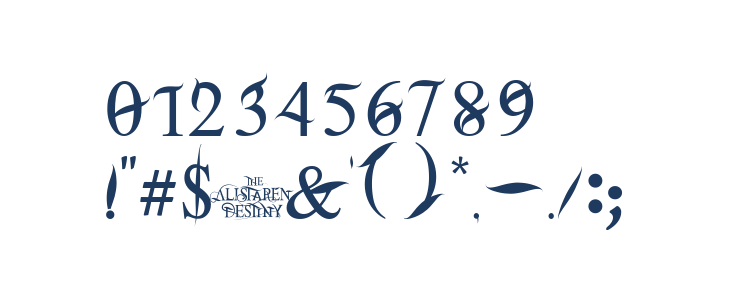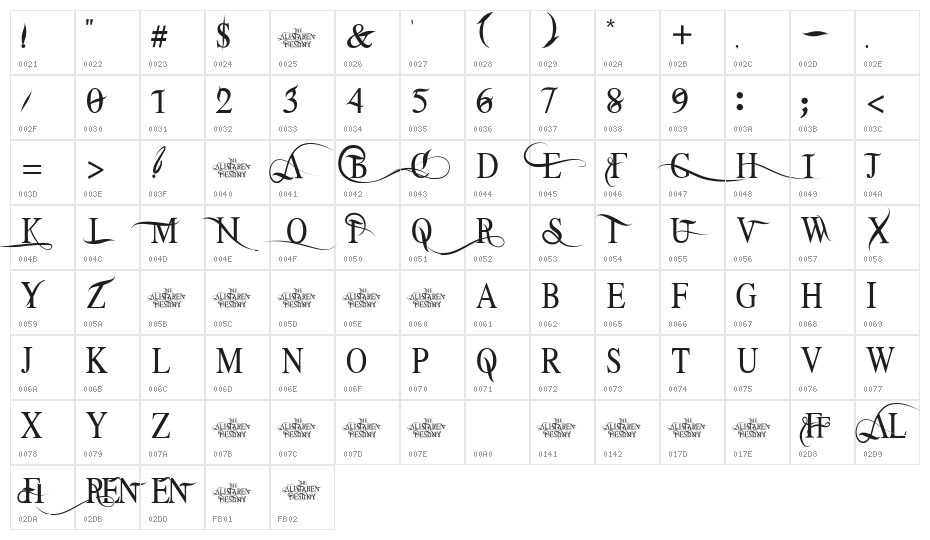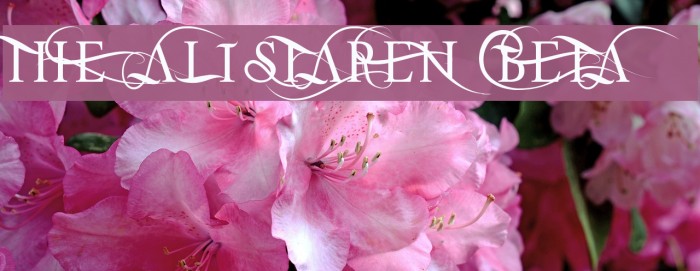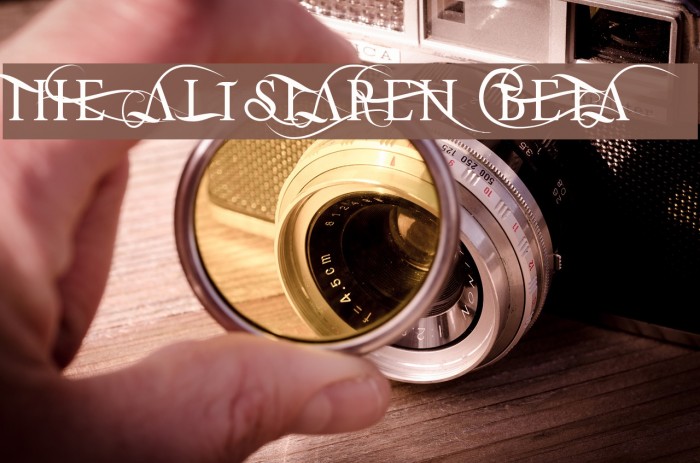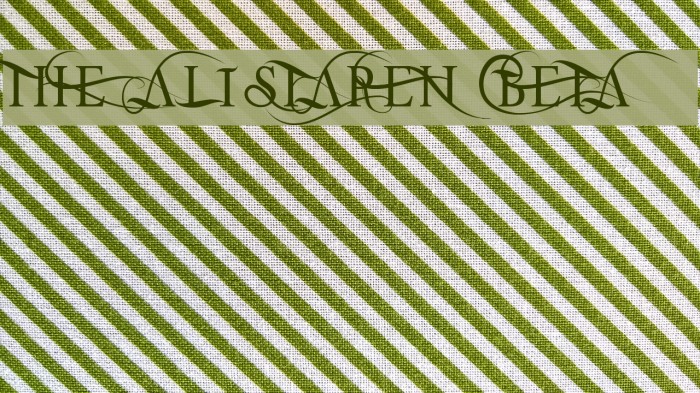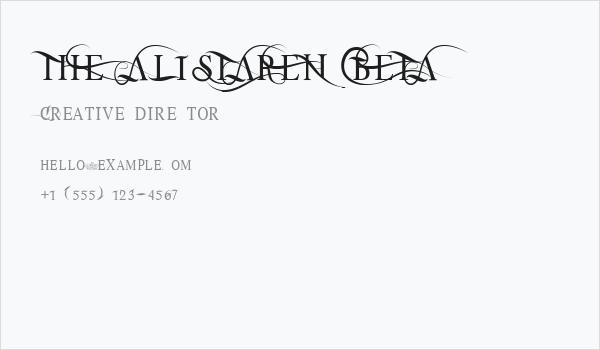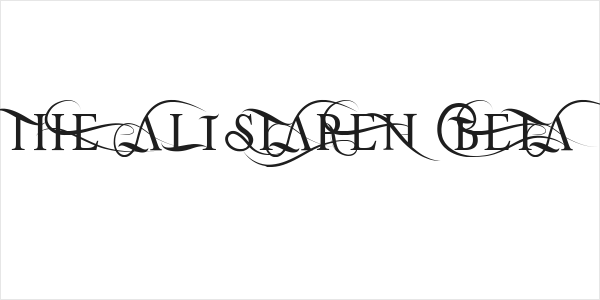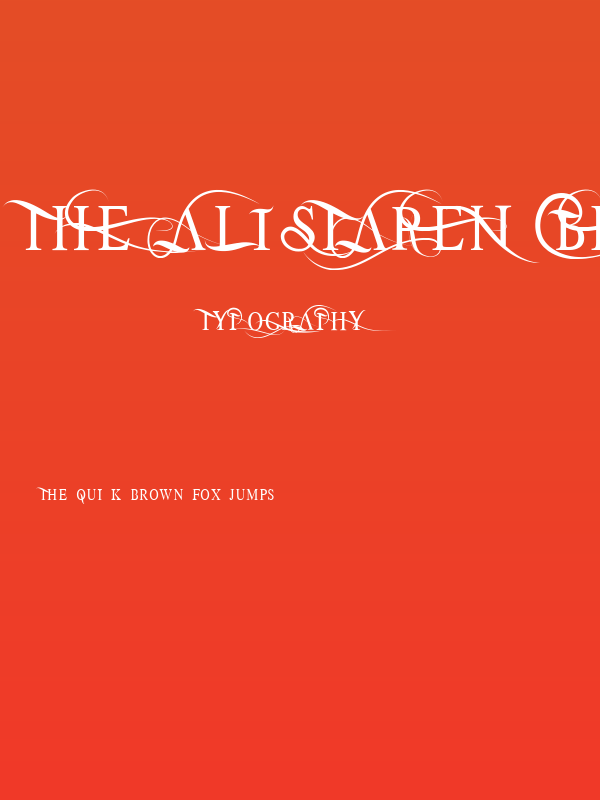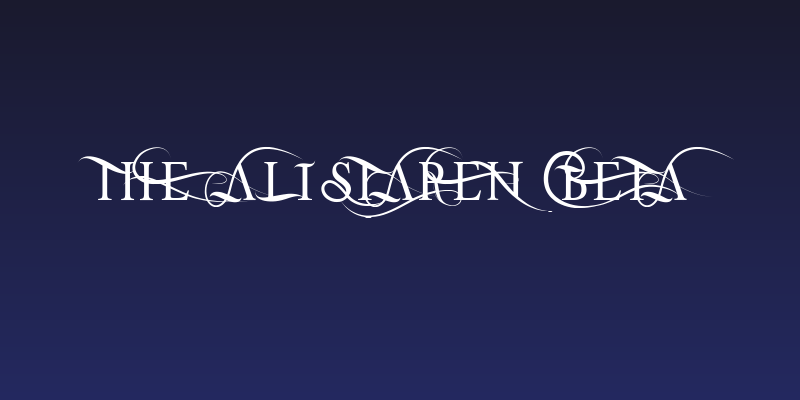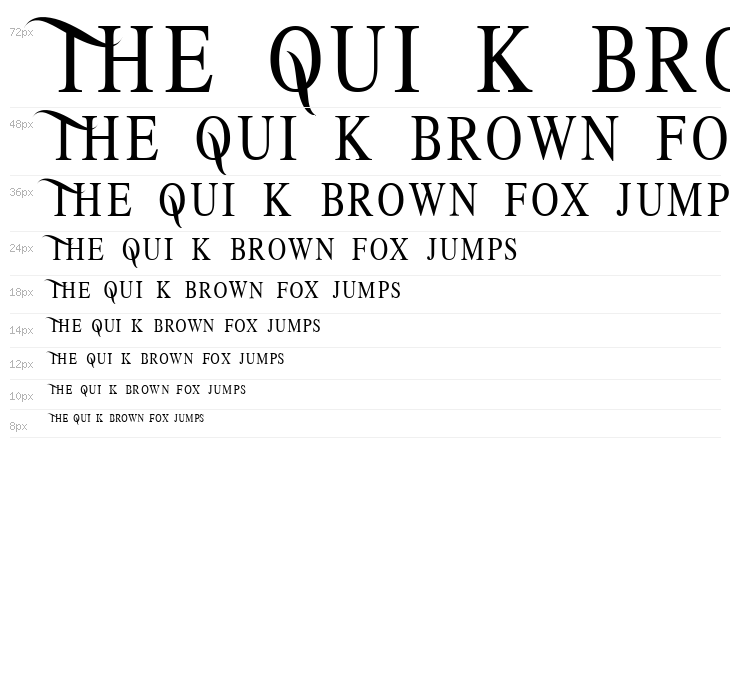
THE ALISTAREN BETA Font
THE ALISTAREN BETA Description
This font features a unique blend of decorative and classic serif elements, with intricate flourishes that add a touch of elegance and sophistication. The uppercase letters are adorned with elaborate swirls and extensions, making them ideal for eye-catching headlines or artistic projects. The lowercase letters maintain a more traditional serif appearance, providing a balanced contrast to the ornate capitals. Numbers and special characters are designed with similar attention to detail, ensuring consistency throughout. This font is perfect for projects that require a dramatic and artistic flair, such as invitations, posters, or branding materials. Its high contrast in stroke thickness enhances readability while maintaining its decorative appeal.
| Use Case | Headlines, Logos, Artistic projects |
| Proposed Projects | Ideal for invitations, posters, branding, and artistic projects requiring an elegant touch. |